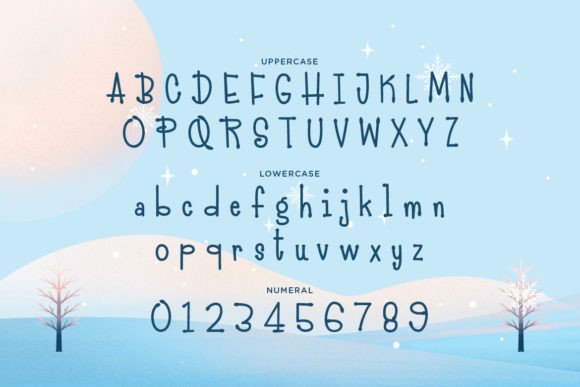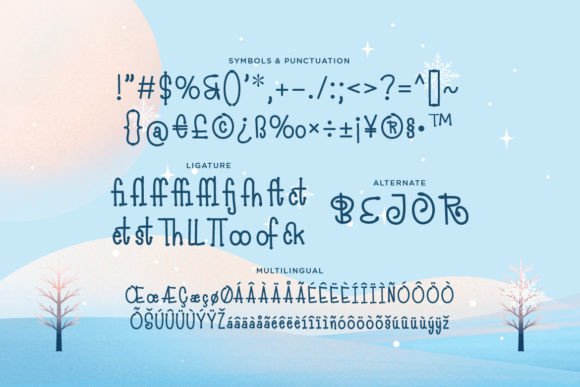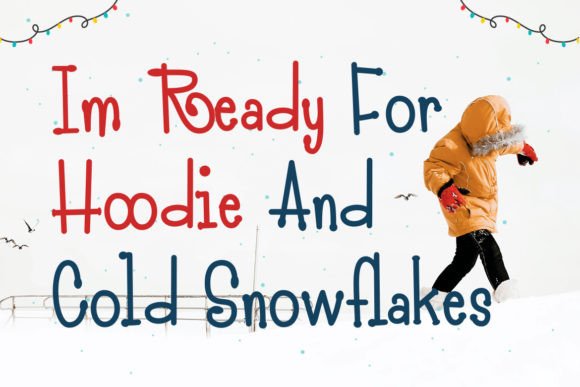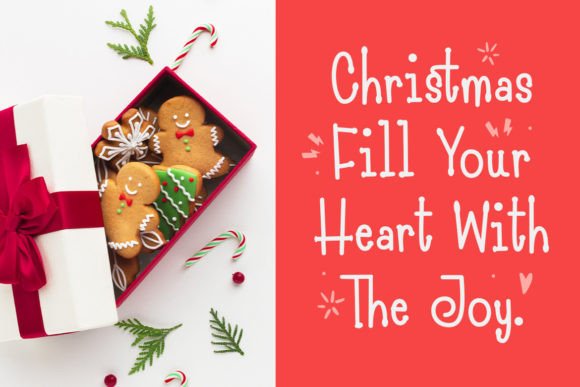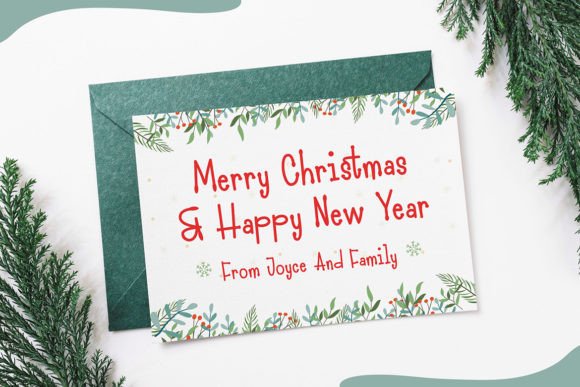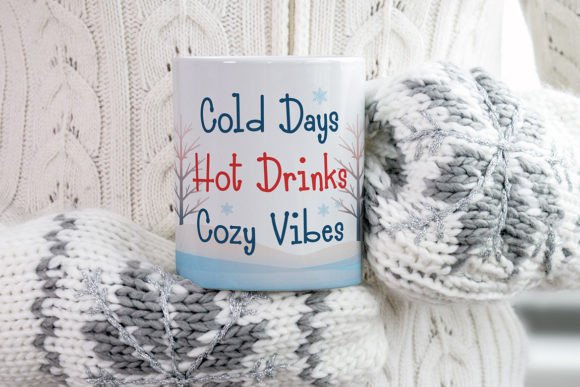
Introduction to Milvese Font Font
Fonts play a crucial role in design, and the Milvese Font font is a typeface that brings both character and versatility to any project. Whether you’re working on a branding project, a website, or a print design, the Milvese Font font offers a unique style that can elevate your work.
Step into a world of joy and laughter with βMilverseβ β a holiday comic font that brings a playful and festive spirit to your designs.
With its whimsical and expressive letterforms, βMilverseβ captures the essence of holiday cheer and merriment Each character carries a sense of fun and excitement, making it perfect for creating holiday-themed greeting cards, party invitations, comic strips, and more.
Key Features of Milvese Font Font
Why Choose Milvese Font Font?
The Milvese Font font is more than just a typeface β it’s a design tool that helps you communicate your message with style and clarity. Its unique character set and versatile design make it suitable for a wide range of applications, from elegant invitations to bold headlines.
With its carefully crafted letterforms and balanced proportions, the Milvese Font font ensures readability and visual appeal across all mediums.
What makes Milvese Font font special?
The Milvese Font font stands out with its unique design, exceptional readability, and versatility across various design applications.